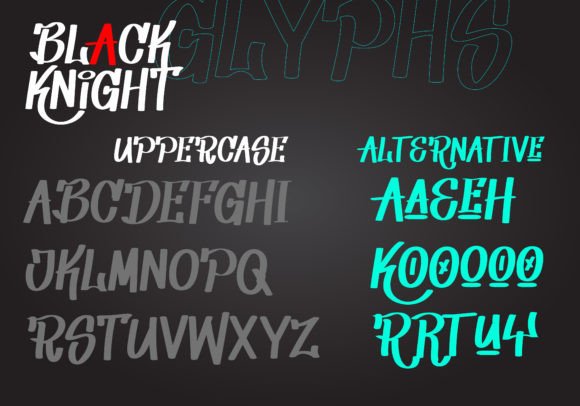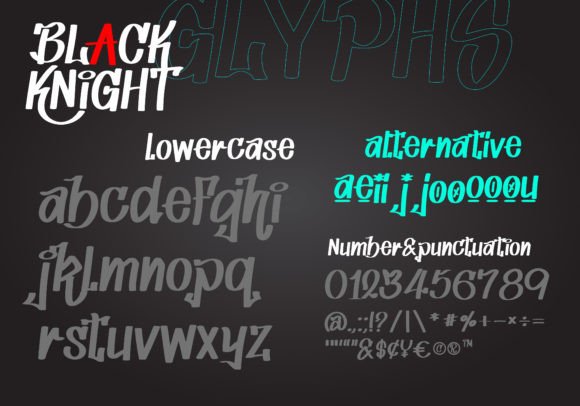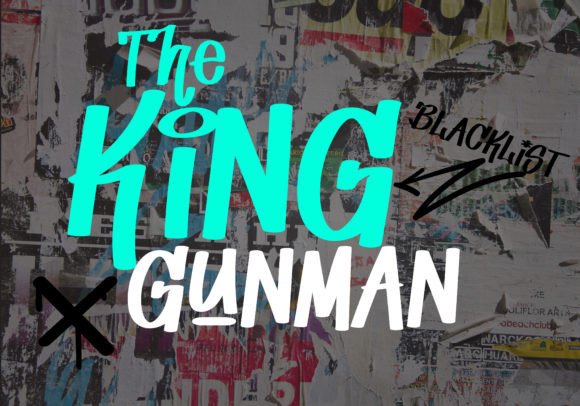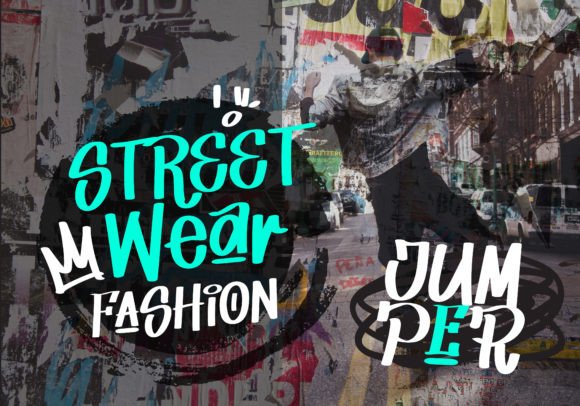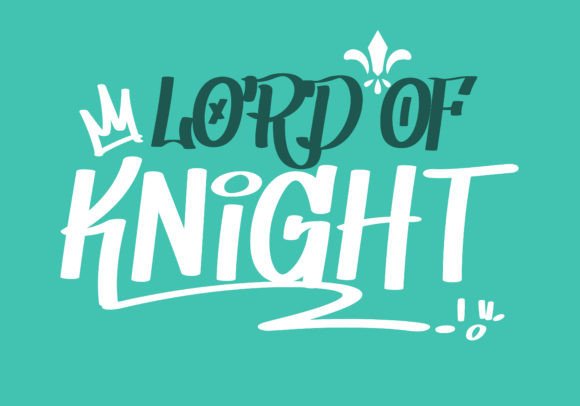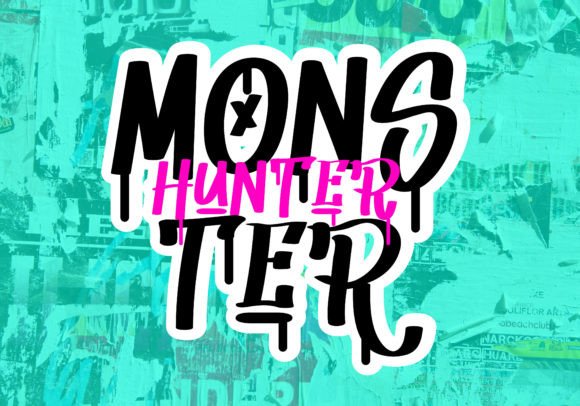
Unleash Your Creativity with Black Knight Font: The Ultimate Graffiti-Style Display Font
Are you a designer or crafter looking for a font that can add a touch of edginess and street art vibe to your designs? Look no further than the Black Knight Font. This awesome, graffiti-style display font is perfect for creating bold and eye-catching designs that will leave a lasting impression. In this article, we’ll dive into the features and benefits of Black Knight Font, and explore how you can use it to take your designs to the next level.
What is Black Knight Font?
Black Knight Font is a unique and stylish font that is inspired by the raw energy of street art. Its graffiti-style design gives it a bold and edgy look that’s perfect for creating designs that demand attention. Whether you’re looking to create a logo, advertisement, or t-shirt design, Black Knight Font is the perfect choice.
Key Features of Black Knight Font
- Graffiti-style design: Black Knight Font has a bold and edgy design that’s inspired by street art.
- Display font: This font is specifically designed for display purposes, making it perfect for headlines, titles, and other prominent text elements.
- Street art vibe: Black Knight Font has a raw, urban feel that’s perfect for designs that need to stand out.
- Versatile: This font can be used for a wide range of designs, including t-shirts, sportswear, logos, advertisements, clothing, and more.
Benefits of Using Black Knight Font
So why choose Black Knight Font for your designs? Here are just a few benefits of using this amazing font:
- Adds edge to your designs: Black Knight Font can add a touch of edginess and attitude to your designs, making them stand out from the crowd.
- Perfect for urban-themed designs: If you’re creating designs for urban-themed projects, Black Knight Font is the perfect choice.
- Easy to read: Despite its bold and edgy design, Black Knight Font is easy to read, making it perfect for use in a wide range of designs.
- Unique and stylish: Black Knight Font is a one-of-a-kind font that’s sure to make your designs stand out.
How to Use Black Knight Font in Your Designs
Black Knight Font is a versatile font that can be used in a wide range of designs. Here are a few ideas to get you started:
- T-shirt designs: Black Knight Font is perfect for creating bold and eye-catching t-shirt designs.
- Sportswear: Use Black Knight Font to create stylish and edgy sportswear designs.
- Logos: Black Knight Font can be used to create unique and memorable logos for businesses and brands.
- Advertisements: Use Black Knight Font to create bold and attention-grabbing advertisements.
- Clothing: Black Knight Font can be used to create stylish and edgy clothing designs, including hoodies, hats, and more.
Tips for Getting the Most Out of Black Knight Font
Here are a few tips for getting the most out of Black Knight Font:
- Use it boldly: Black Knight Font is a bold and edgy font, so don’t be afraid to use it boldly in your designs.
- Experiment with colors: Black Knight Font looks great in a wide range of colors, so experiment with different colors to find the one that works best for your design.
- Pair it with other fonts: Black Knight Font can be paired with other fonts to create a unique and stylish look.
| Font Name | Black Knight Font |
| Author | BB Type Studios |